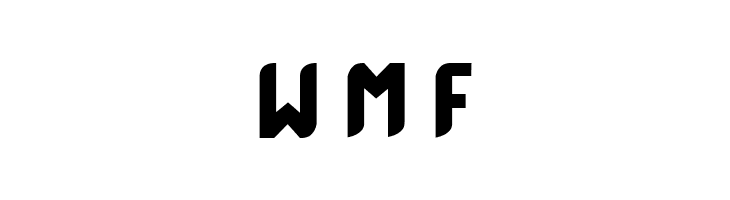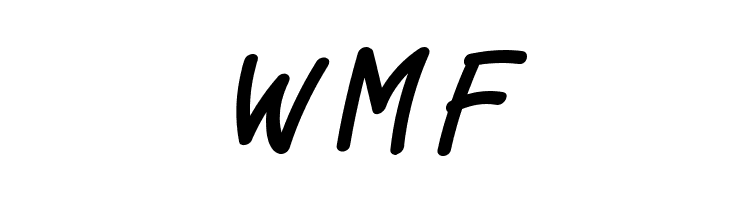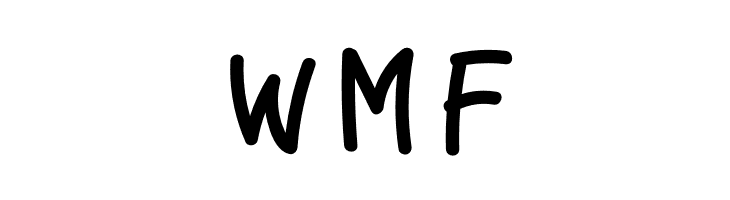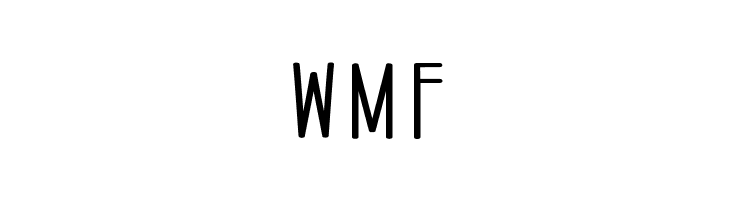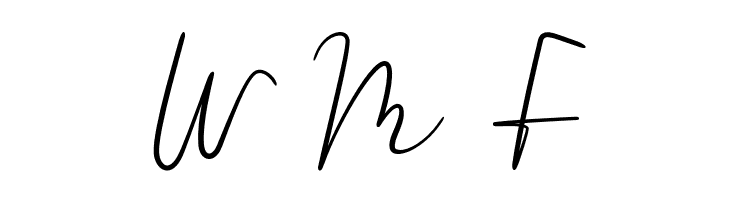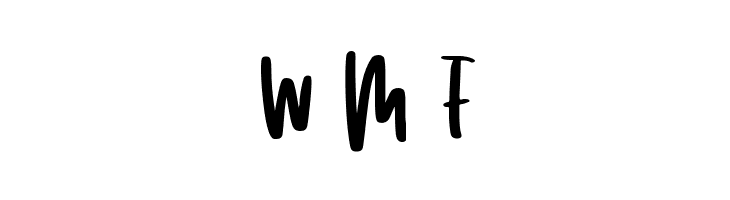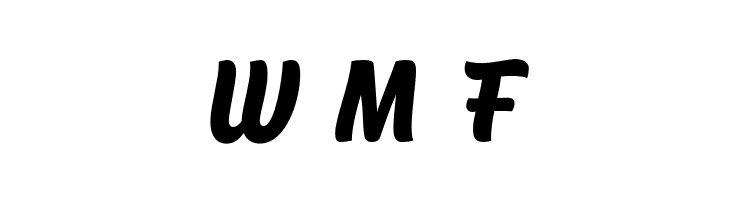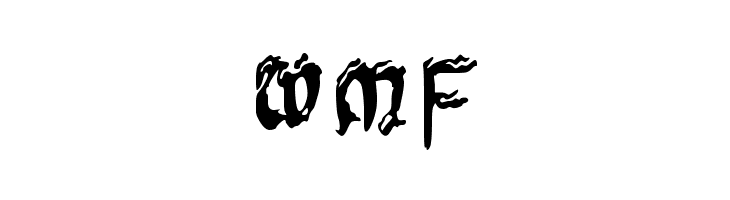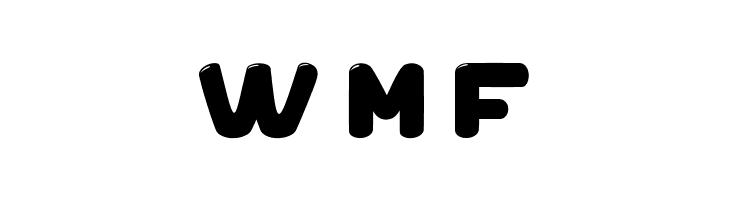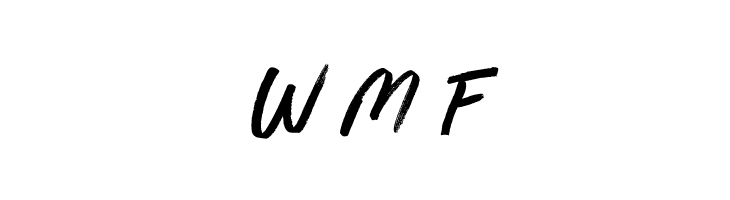
A bold, dynamic font with a playful, distorted style.
A bold, playful font with chunky, hand-drawn characters.
) A clean, modern sans-serif font with consistent stroke widths and geometric letterforms.
A bold, futuristic font with sharp angles and geometric shapes.
A bold, italicized font with dynamic angles and strong visual impact.
A dynamic italic font with bold, angular characters and a modern style.
A bold, futuristic font with sharp angles and geometric shapes.
A dynamic, brush-style font with expressive, fluid strokes.
A modern, geometric font with bold, clean lines and a slightly condensed style.
A bold, angular font with a futuristic and industrial design.
A bold, geometric font with angular shapes and a futuristic style.
A bold, italicized font with angular, dynamic characters.
A bold, italicized font with sharp, angular edges and a dynamic slant.
A creative and artistic font with a blend of geometric and organic shapes.
A bold, playful serif font with rounded serifs and a vintage charm.
A bold, playful font with rounded edges and a slightly condensed form.
A playful, bold font with rounded, bubbly characters.
A playful, hand-drawn font with bold, rounded characters.
A playful handwritten font with smooth, rounded strokes and a casual feel.
A bold, playful font with a chunky, hand-drawn style and textured details.
A playful, handwritten font with a whimsical and decorative style.
A sleek, geometric font with clean lines and a modern aesthetic.
A bold, rounded font with a playful and friendly style.
A playful, bold font with rounded edges and a friendly appearance.
A playful, rounded font with smooth curves and a friendly appearance.
A playful, cookie-inspired font with bold, rounded characters and a dotted pattern.
A lively and flowing script font with elegant curves and interconnected letters.
A lively and flowing script font with elegant cursive letterforms.
A playful, casual handwritten font with rounded, smooth letterforms.
A playful, bold font with rounded, thick strokes and a friendly appearance.
A playful, casual script font with fluid, dynamic strokes and a hand-drawn quality.